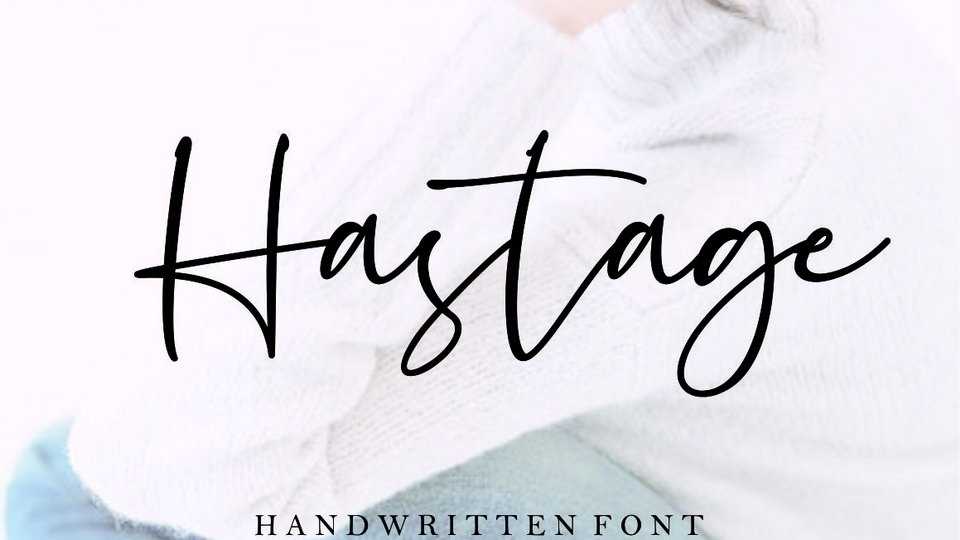
Download Hastage font, a stylish signature script with natural handwritten look. Suitable for logo, branding, invitation and cards, wedding designs, social media posts, advertisements, label, photography, watermark, special event,magazine, web design and more.
Designer: Fikry Alif